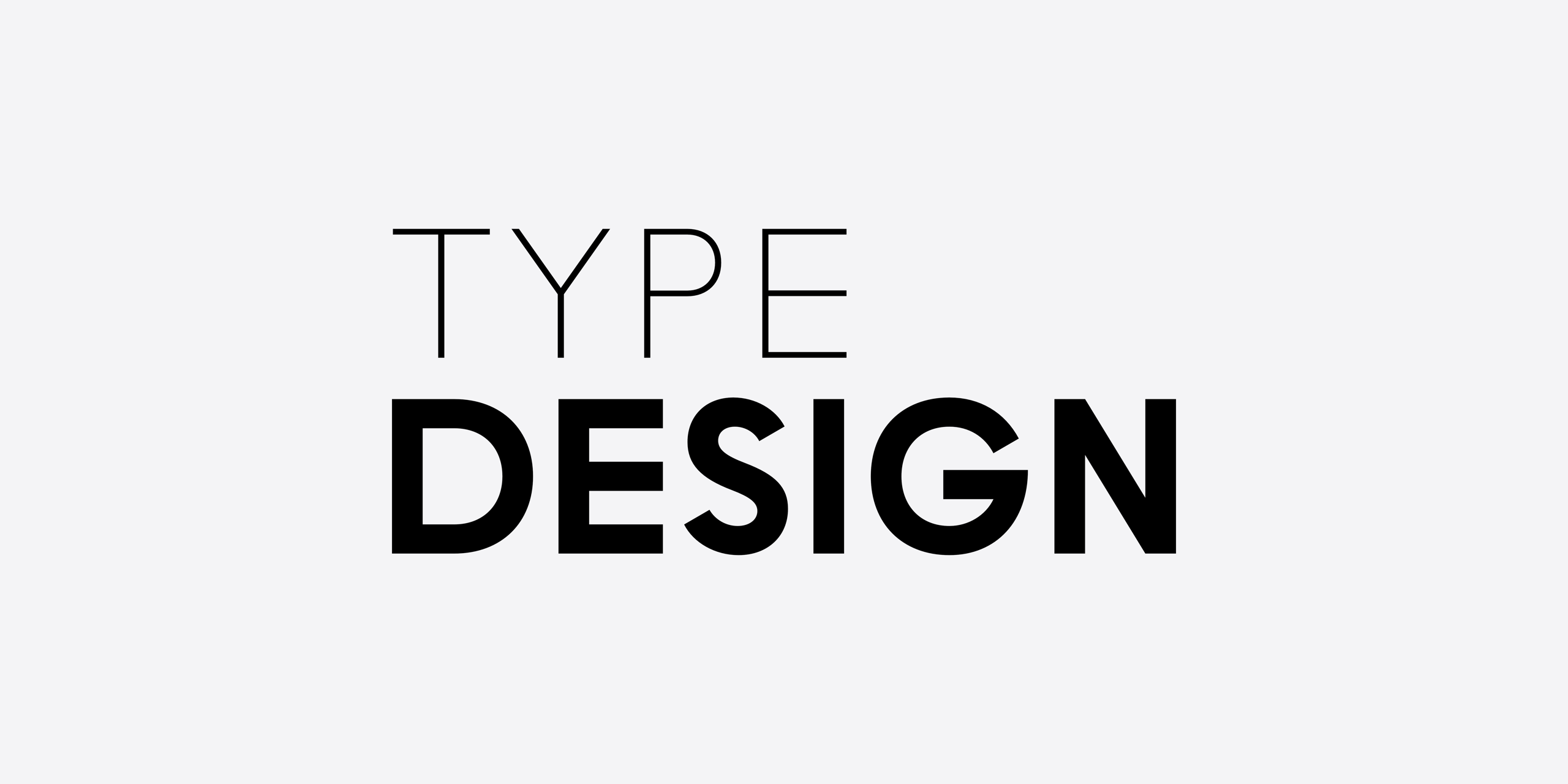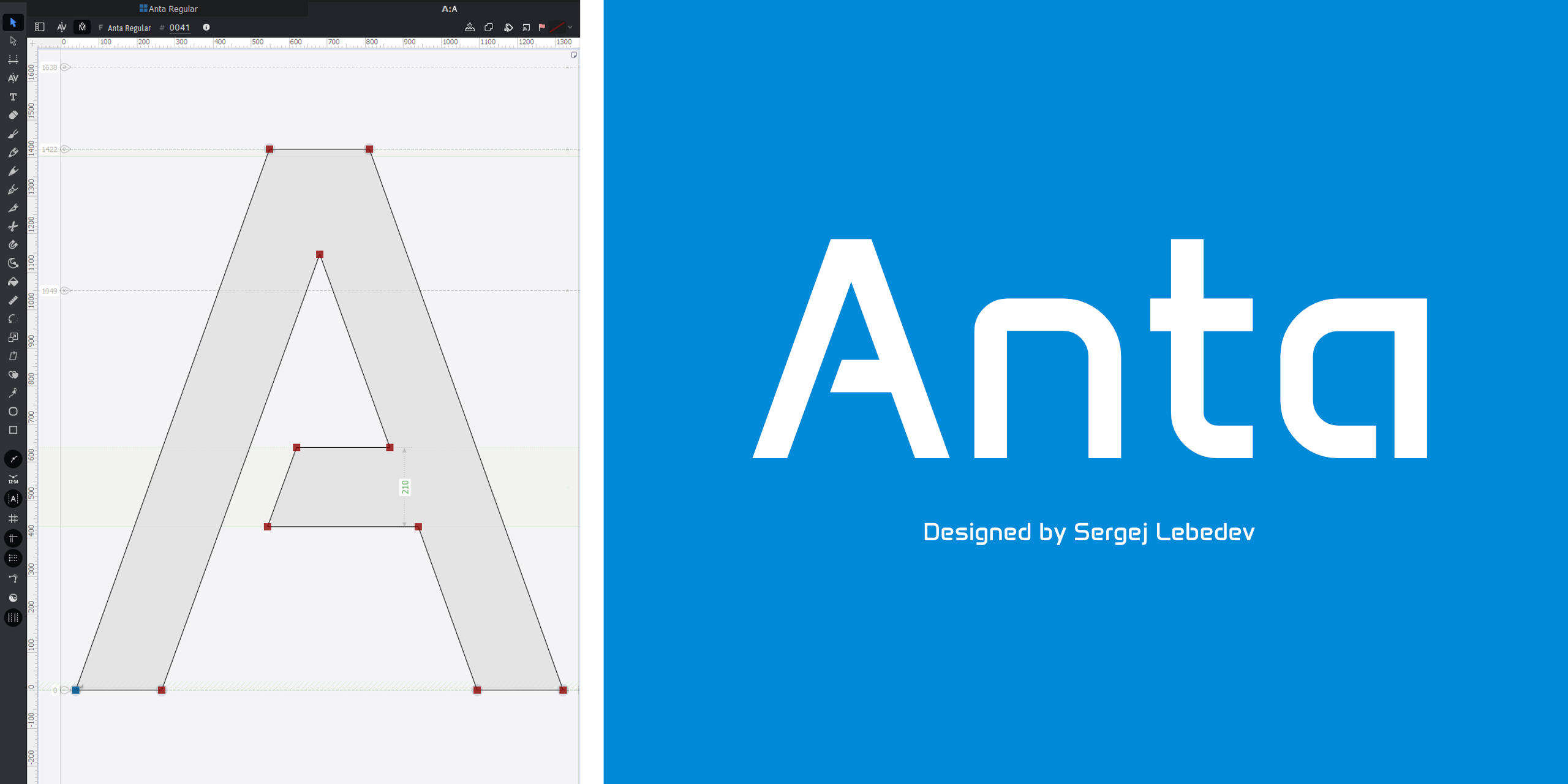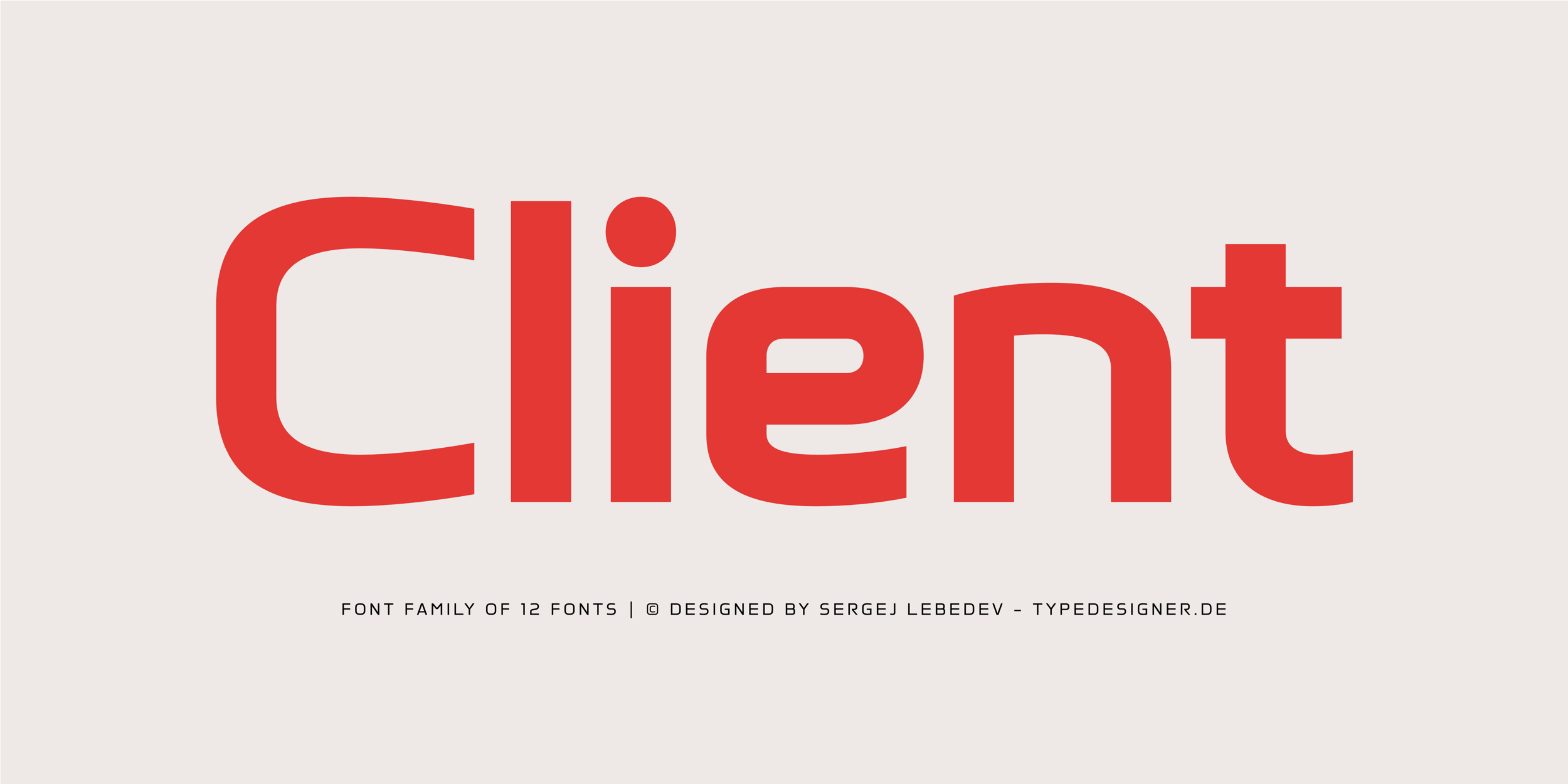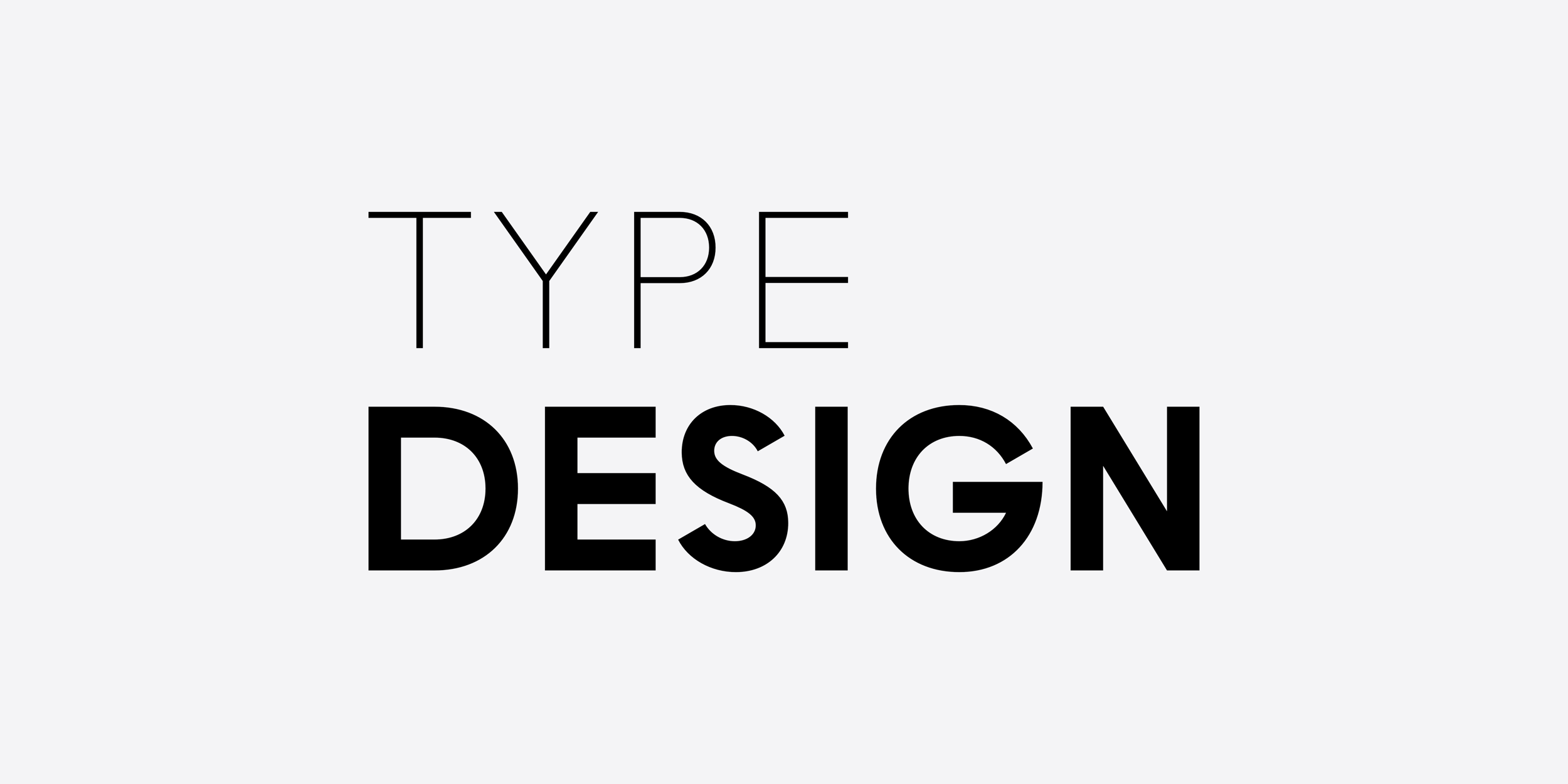
Typedesigner.de presents the work of Sergej Lebedev to designers, agencies, and publishing houses around the world. Sergej Lebedev is a German type designer with extensive professional experience in type and brand design. After studying communication design at Trier University of Applied Sciences, he established himself as a specialist known for his creative precision and his ability to develop comprehensive font families.
His typefaces are used internationally by designers, corporations, publishers, and advertising agencies across both print and digital media. A particular focus of his work lies in the creation of bespoke corporate fonts that strengthen a company’s visual identity. With a refined and thoughtful approach to type design, he creates typefaces that are not only visually distinctive but also enrich the overall brand experience. Further information.
Discover a selection of high-quality sans-serif fonts, designed by Sergej Lebedev. Each font family has been crafted with great attention to detail to offer versatility and clarity. They are designed to deliver clean, contemporary aesthetics while maintaining readability and flexibility. They are perfect for modern design projects and bring a unique yet versatile touch to any creative work.
Aela Font Superfamily
Aela font superfamily comprises 24 elegant, high quality fonts, designed by Sergej Lebedev in 2024. Its meticulously crafted typeface includes condensed fonts and italics, rendering it optimal for comprehensive design projects and applications such as branding, editorial design and web design. Aela’s distinctive stroke contrast imbues it with a pristine visual elegance, while maintaining a clear design language. Additionally, Aela boasts an international character set and supports numerous Latin languages, enhancing its versatility. This feature makes Aela a versatile tool for international brands and publications that require a consistent typographic identity across different languages. Aela is also available in 4 variable fonts. Supported by modern web browsers and Adobe design applications, variable fonts allow seamless transitions between different weights and styles within a single file.
App Sans Font Family
App Sans is a contemporary font family of 12 fonts and 2 variable fonts designed by Sergej Lebedev in 2024. It has been designed for use in both print and user interface (UI) contexts. The flexibility and adaptability of App Sans make it an excellent choice for digital products in the present era. The contrasting strokes give the font a contemporary feel that works well in both large headlines and small body text. Whether for mobile applications, websites, or interactive displays, App Sans offers the clarity and legibility that users expect from a UI typeface. Another advantage of App Sans is its international focus. The character set is multilingual, supporting a number of languages, including the Cyrillic alphabet, making the font suitable for use in a global context.
Client Font Family
Client is a contemporary, square, sans-serif typeface with a bold presence and a clean, confident tone. Its modern character and distinctive letterforms make it an eye-catching choice for forward-thinking designs. With 12 styles and two variable fonts, it offers full flexibility for branding, web design, packaging design and more. Designed with precision and clarity, Client strikes the perfect balance between functionality and a strong visual identity. OpenType features and an extensive character set ensure Client can adapt effortlessly to complex design systems and international typography.
Its powerful geometry and balanced rhythm bring structure and impact to any layout. It is highly versatile and works equally well in bold headlines and clean, readable body text. Client adapts seamlessly across formats while maintaining a distinctive voice. It’s the perfect tool for designers who value clarity, modernity and strength. More than just a typeface, Client is a typographic design statement.
Anta Font Family | Google Fonts
Anta font family was designed by Sergej Lebedev for Google Fonts and was released in February 2024. Since then, it has been featured on numerous websites in Australia, Canada, Germany, Netherlands, Sweden, the USA and other countries. Anta is a contemporary typeface that has been intelligently designed for screen publications and web design, boasting several interesting and constructed glyph shapes that give the typeface a sophisticated and contemporary look. The typeface is particularly suitable for graphic design, but also for branding projects.
Publication on the Anta Font Family – Google Fonts in PAGE Magazine
A comprehensive article on the Anta font family has been published in PAGE magazine. Author Antje Dohmann introduces the Anta typeface, highlighting the design philosophy of type designer Sergej Lebedev and the distinctive features that define the font family. The article also examines the rigorous technical quality standards upheld by Google Fonts.